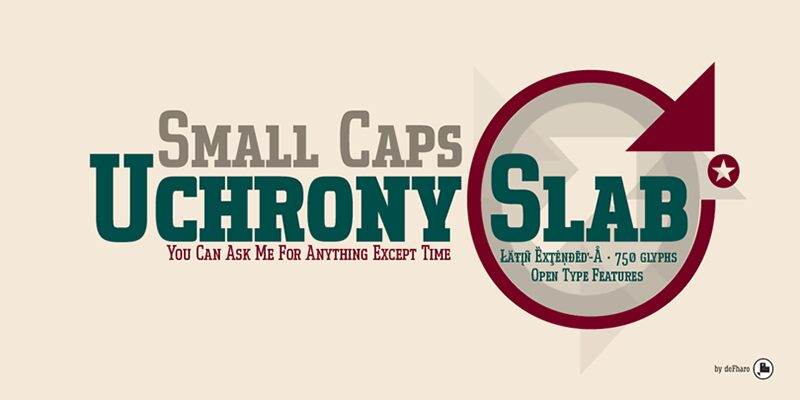
Uchrony SC Regular
Uchrony Small Caps is a condensed proportion slab serif typeface designed by Fernando Haro aka deFharo.
The font family is made with 6 weights (Extra Light, Light, Regular, Medium, Bold and Extra Bold).
Uchrony Small Caps is an exclusive Slab Serif typeface family, with condensed proportion. The font family consists of 6 weights (Extra Light, Light, Regular, Medium, Bold & Extra Bold) with their own personality.